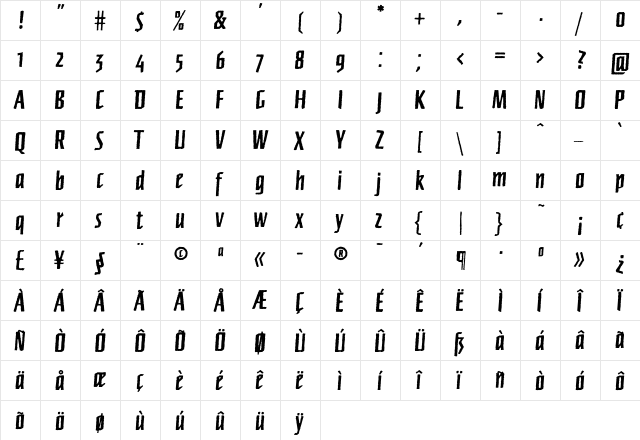
FFNewberlin-BoldRough Medium
Design Context for FFNewberlin-BoldRough Typeface
FFNewberlin-BoldRough trades polish for personality, using distressed and eroded forms to bring grit and attitude to creative work.
A strong fit for alternative music projects, graffiti-adjacent design, and anything that deliberately resists polish.
Pro Tip: Use FFNewberlin-BoldRough at larger sizes where the texture and irregularity of each letterform can be clearly seen — it loses its character at small sizes.